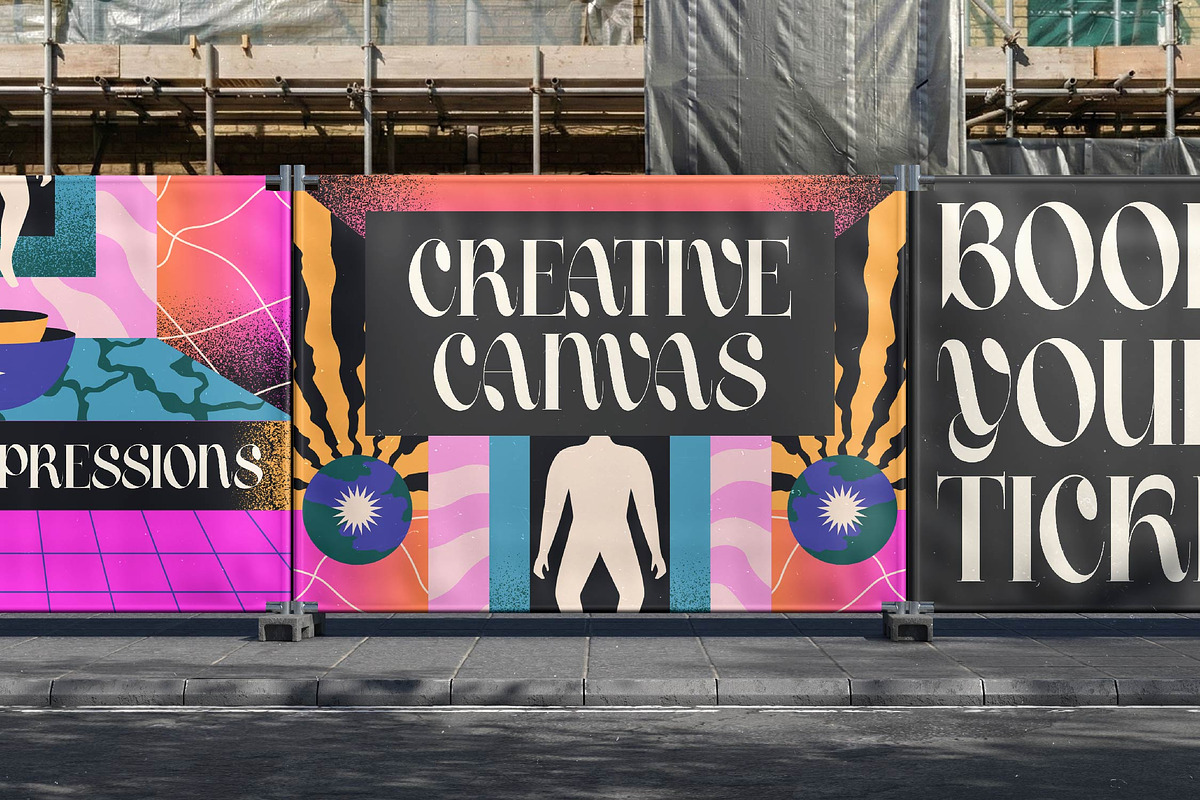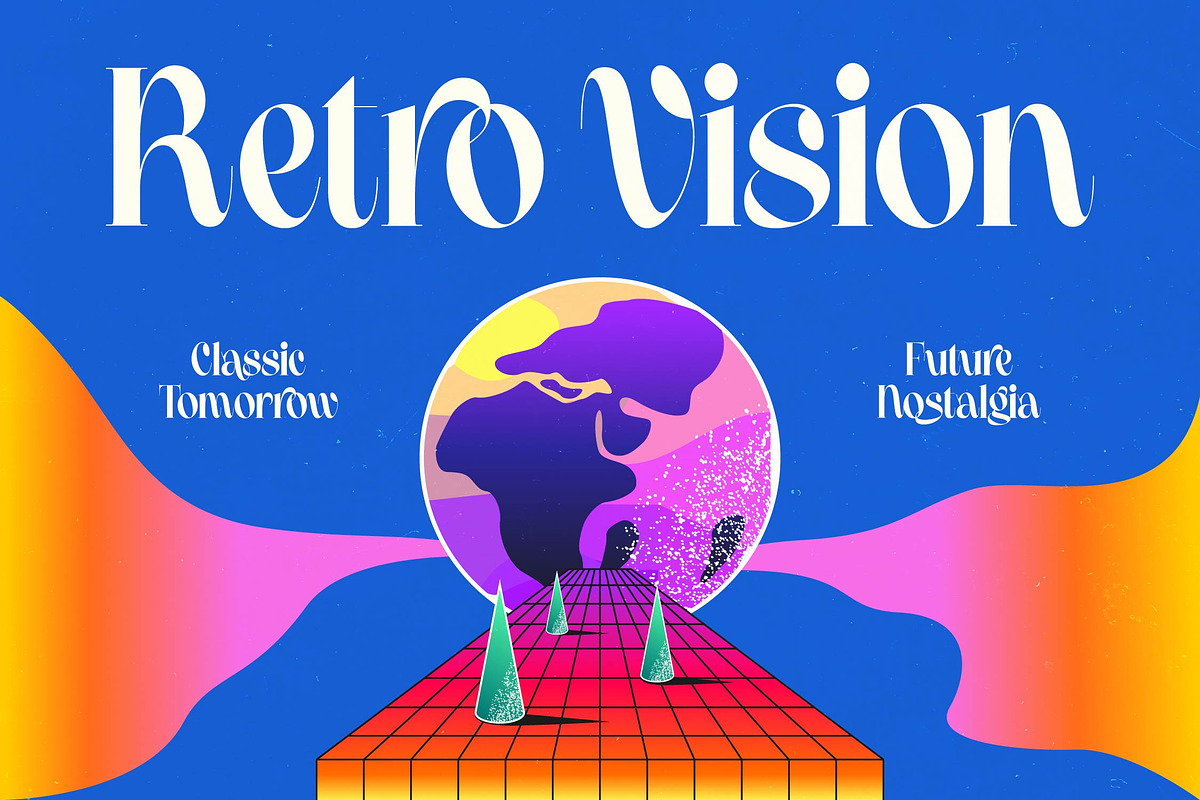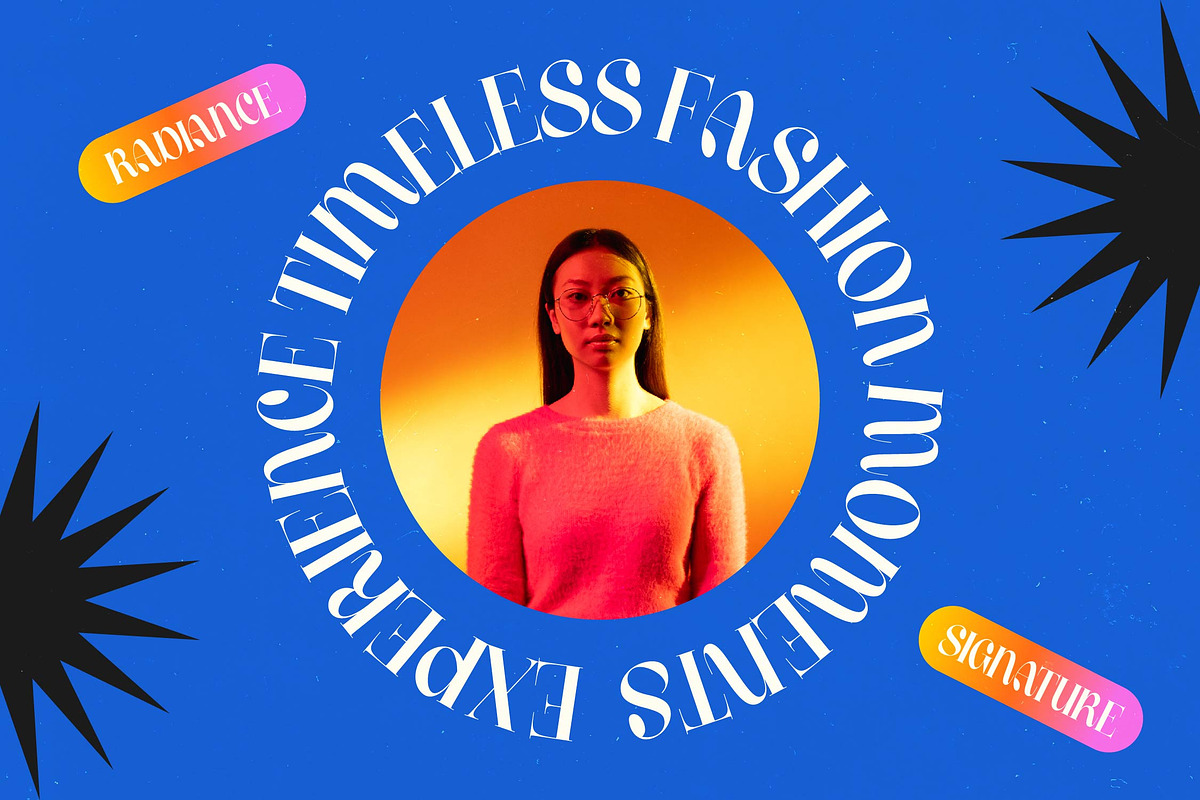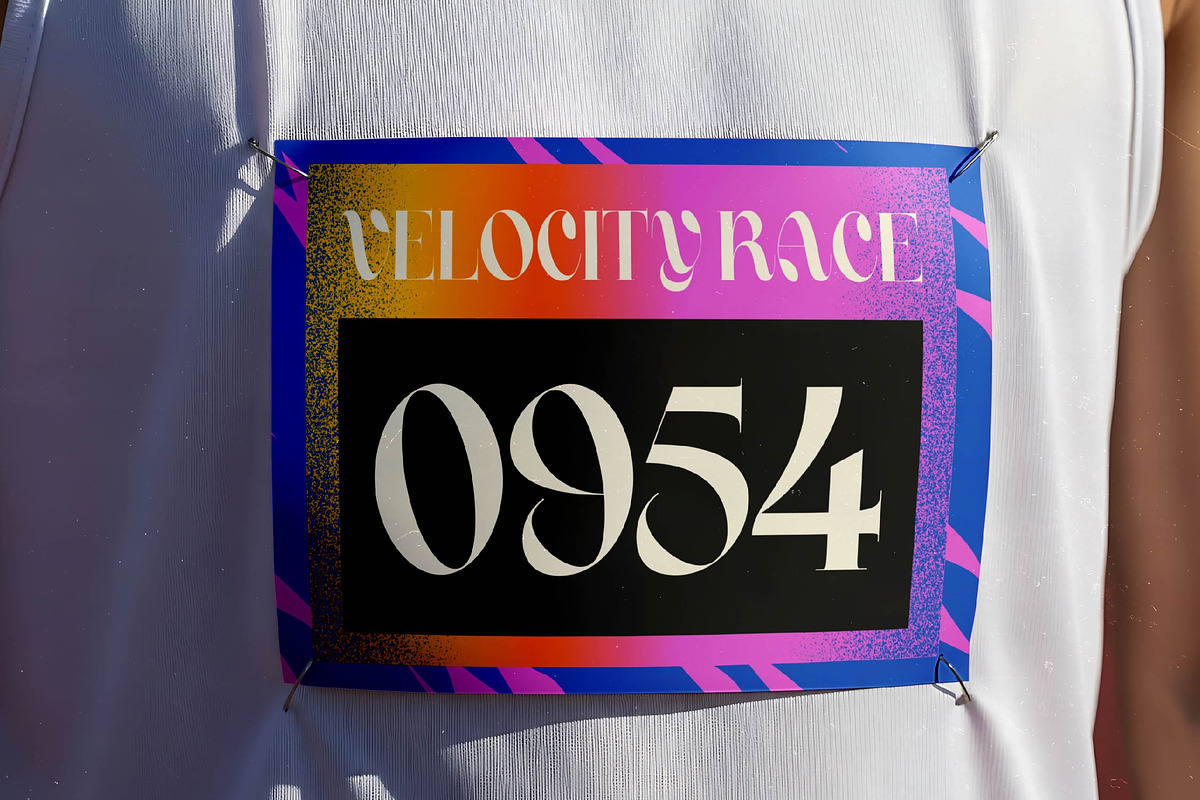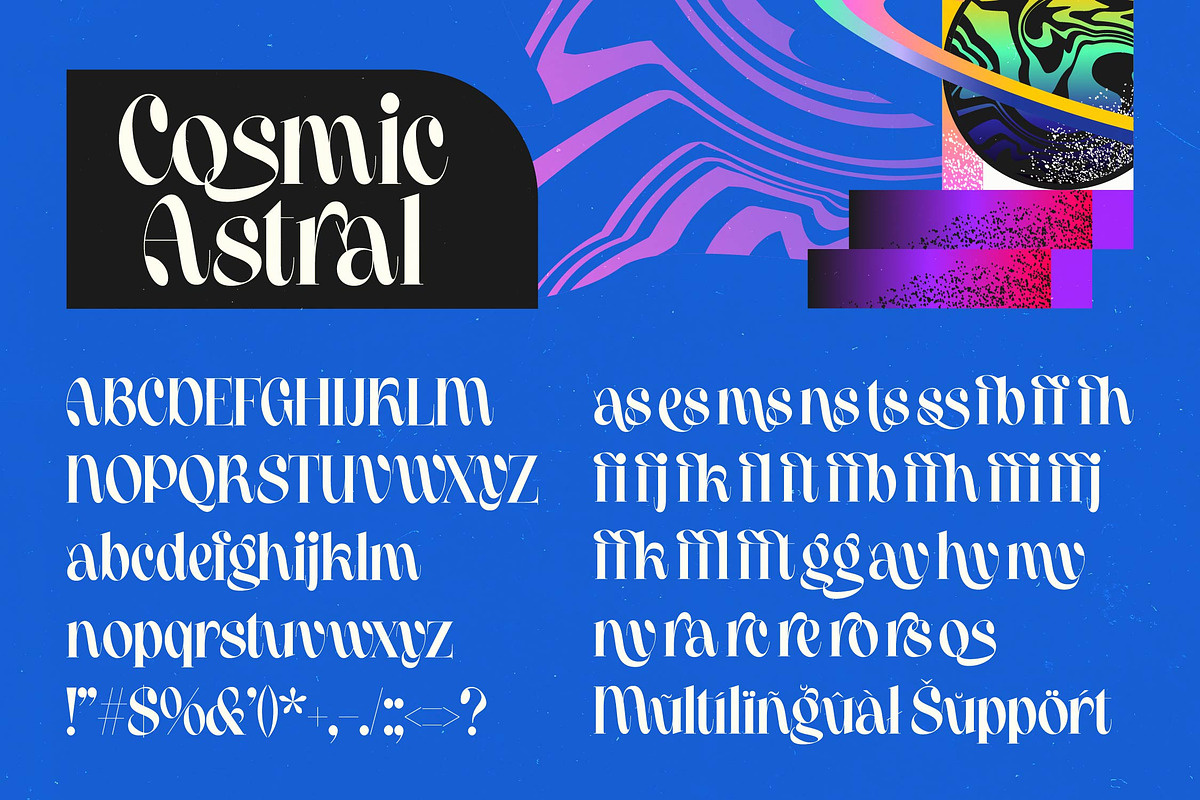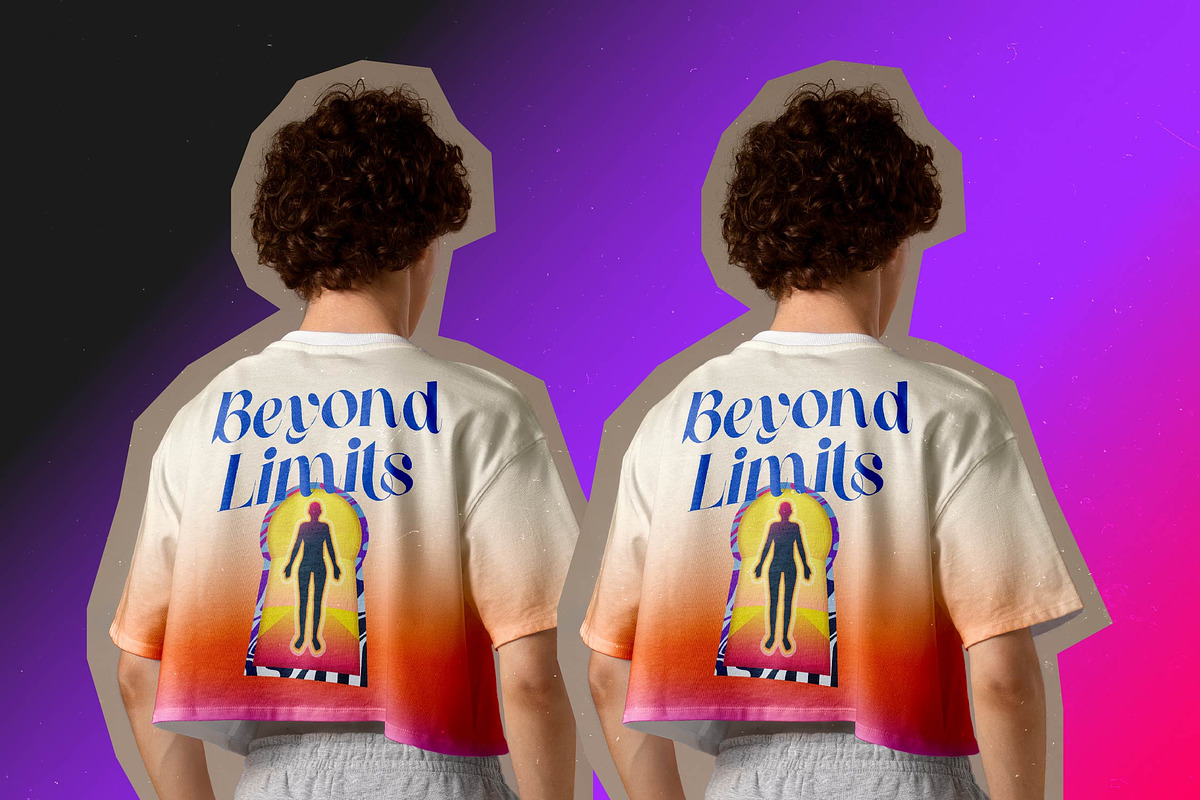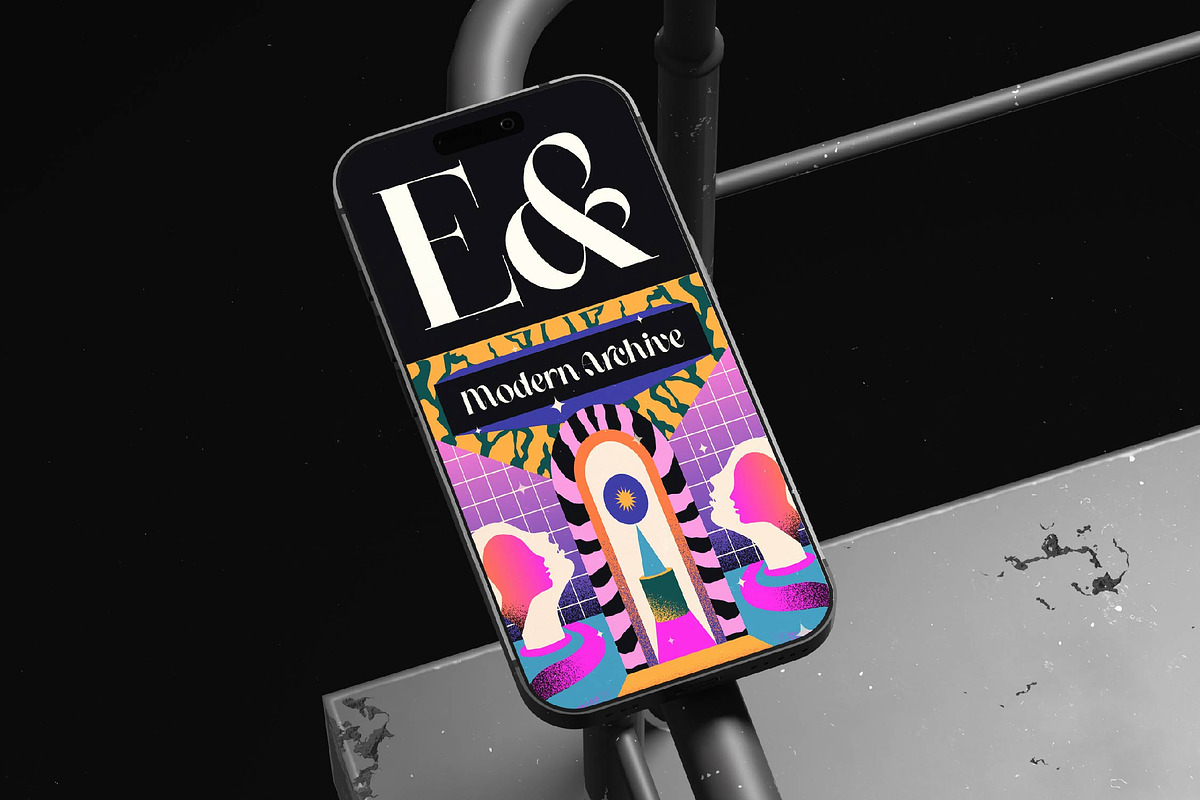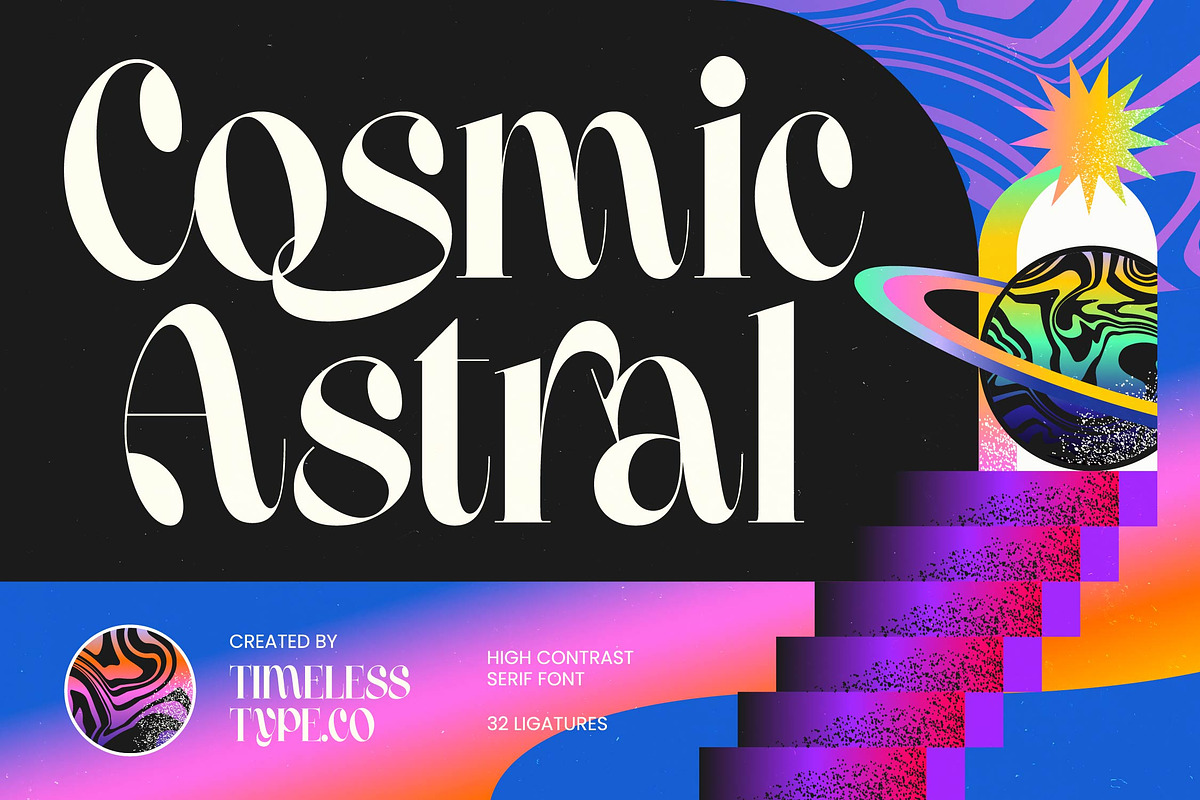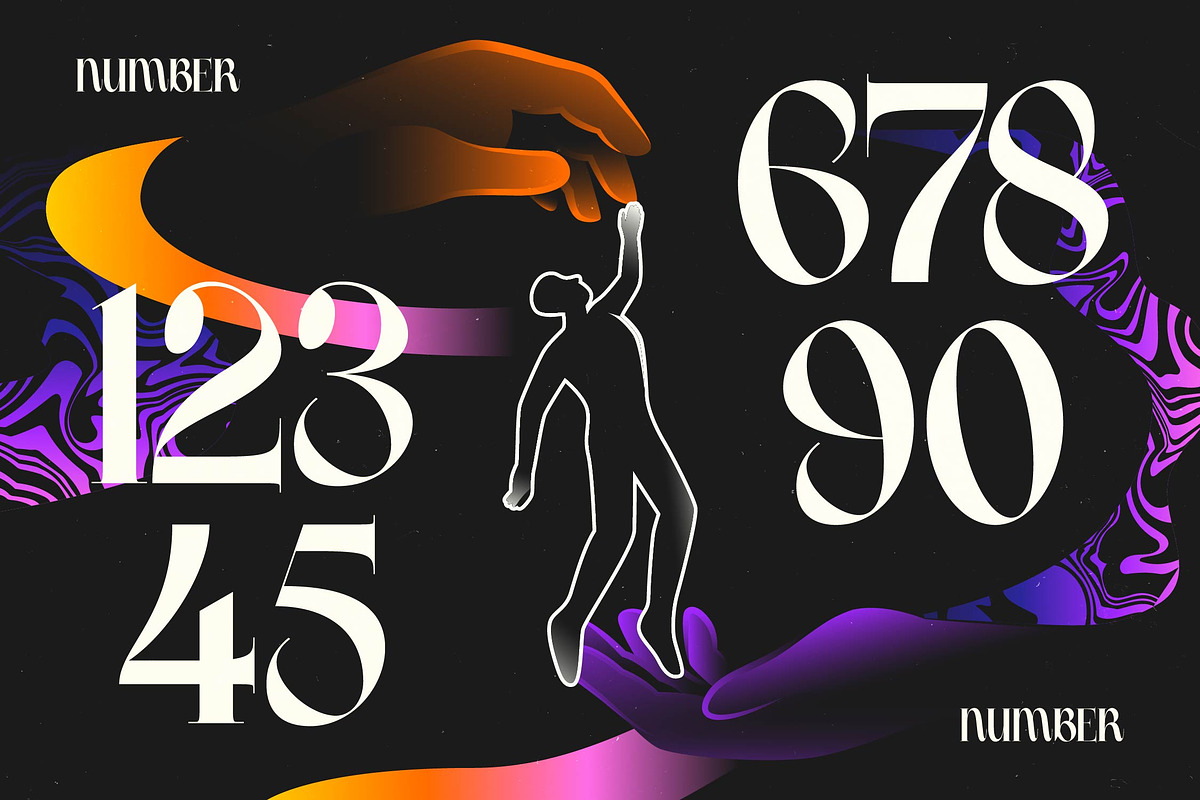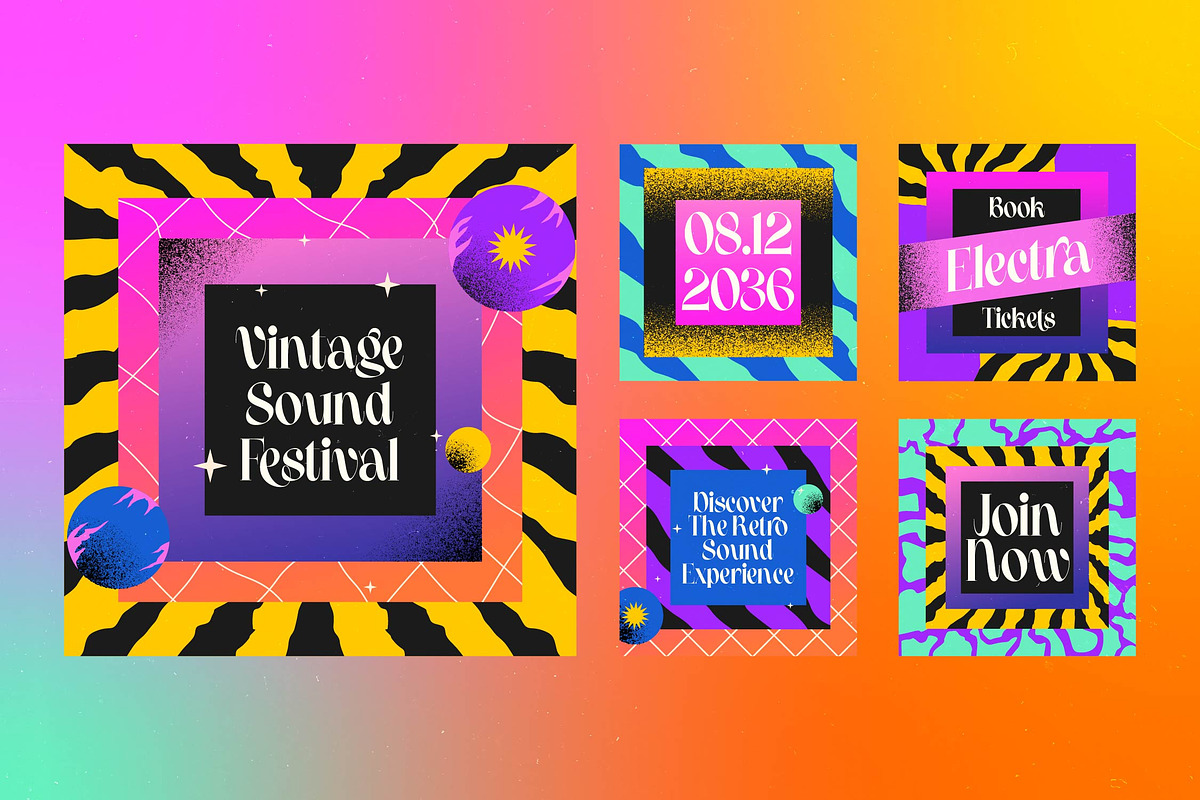
Cosmic Astral High Contrast Serif
Cosmic Astral - High Contrast Serif , Cosmic Astral is an ethereal journey into the heart of sophisticated design, offering a transcendent experience for any high-end creative project. This typeface bridges the gap between the terrestrial and the celestial with unmatched elegance and fluid motion.
Inspired by the psychedelic vibes of the late 1960s and the mystery of deep space, this font captures a unique retro-futuristic aesthetic. Its flowing curves and sharp, needle-thin edges evoke a sense of future nostalgia that feels both timelessly classic and boldly innovative.
This modern serif display is defined by its striking high-contrast serif strokes, making it a true masterpiece of luxury typography. Designed for maximum branding impact, it serves as a quintessential editorial font that commands immediate attention on any digital screen or printed page.
Perfectly aligned with the current modern serif trend, this typeface meets the industry's growing demand for sophisticated editorial display fonts. It represents a shift toward character-driven typography where every letterform is crafted to tell its own compelling visual story.
Designers will find it indispensable for high-end logo design and comprehensive boutique branding identity projects. It excels in premium editorial layouts, luxury packaging, upscale wedding stationery, and the fast-paced world of high-fashion marketing.
Beyond its visual beauty, the font is technically robust, featuring a rich set of unique ligatures, character alternates, and decorative swashes. It is fully multilingual and includes all necessary international characters to support global creative endeavors across various languages.